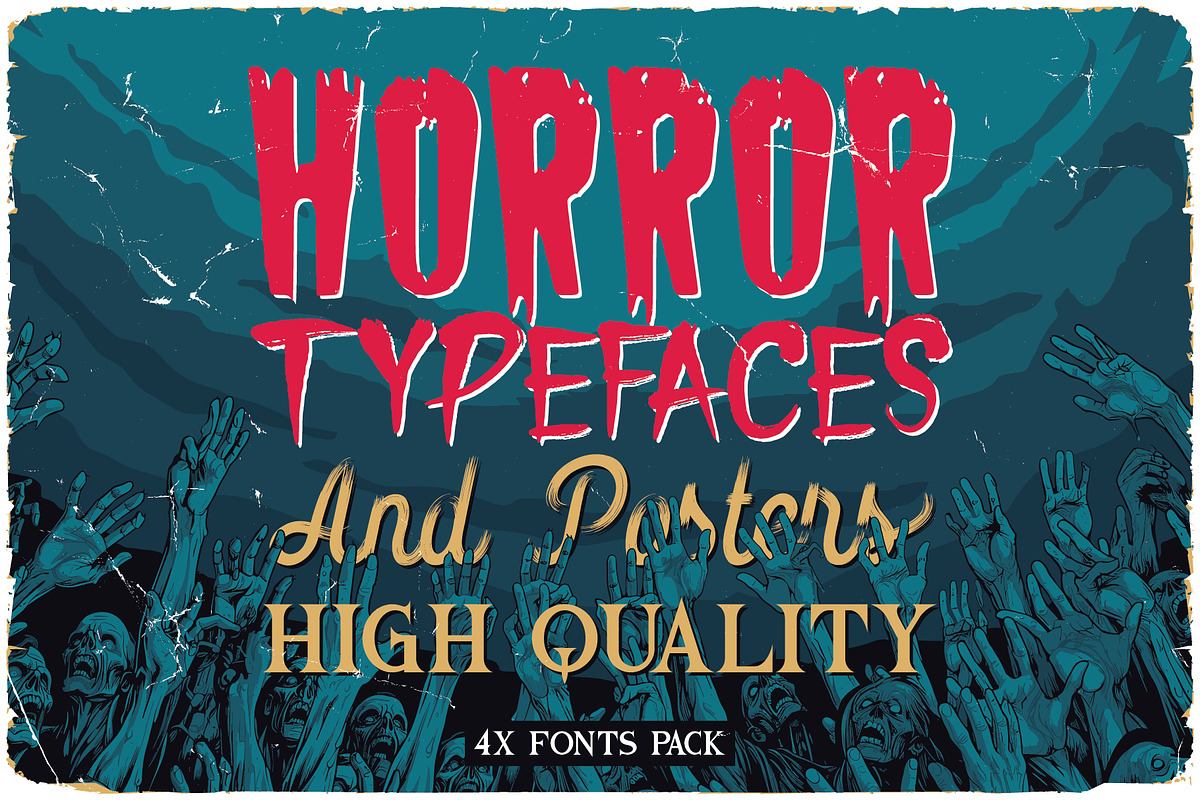
Vintage Horror Fonts & Posters Bundle Free Download is a chilling collection of retro-inspired typefaces and spooky poster templates made for fans of classic horror design. Perfect for haunted house flyers, Halloween branding, thriller movie titles, and eerie merch, this bundle brings vintage terror to modern creativity.
With distressed textures, sharp serifs, and gothic vibes, each font is crafted to evoke old-school monster movie magic. Paired with ready-to-use poster templates, this bundle is a designer’s dream for creating creepy, cinematic visuals. Vintage Horror Fonts & Posters Bundle Free Download allows you to explore the bundle in personal use before purchasing a commercial license.
Summon the spirit of classic fright with this bundle — your ultimate toolkit for vintage horror storytelling.